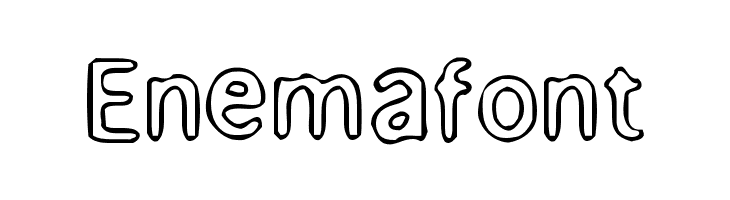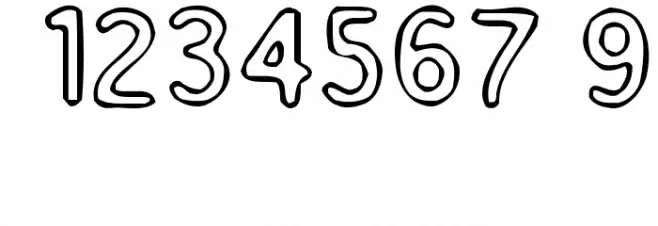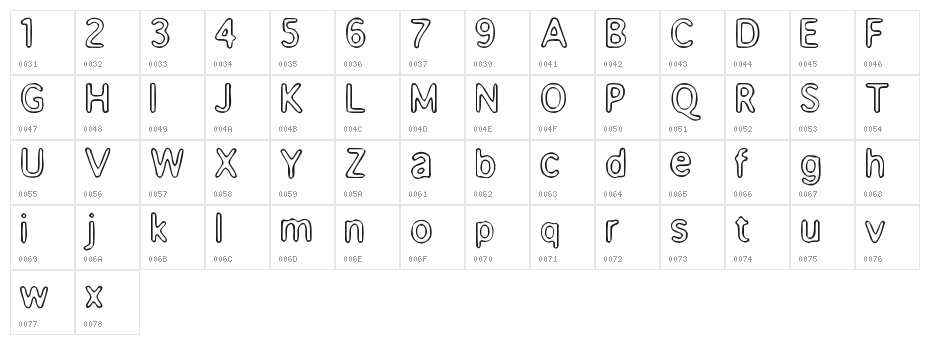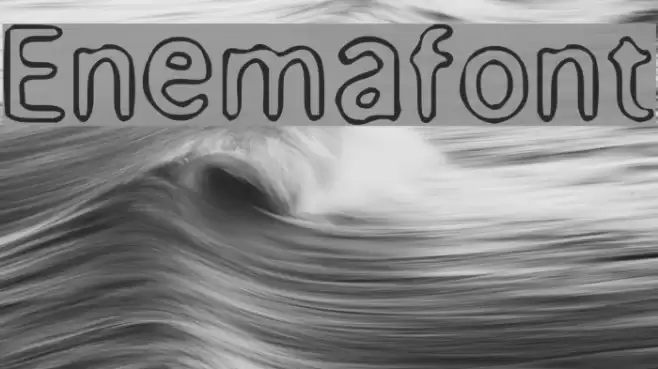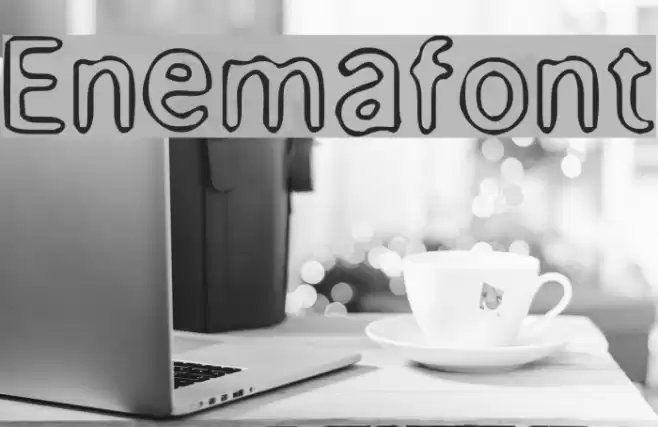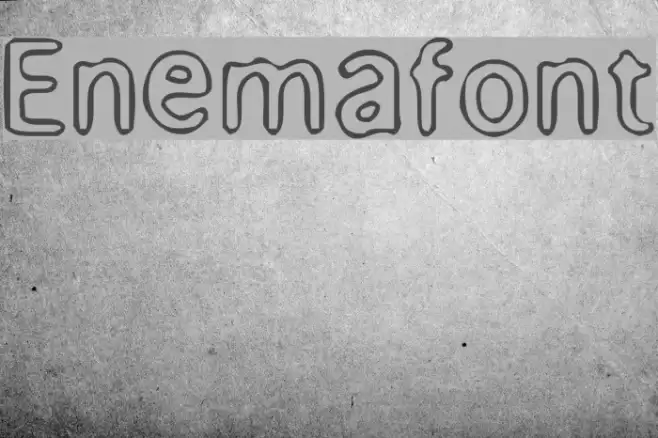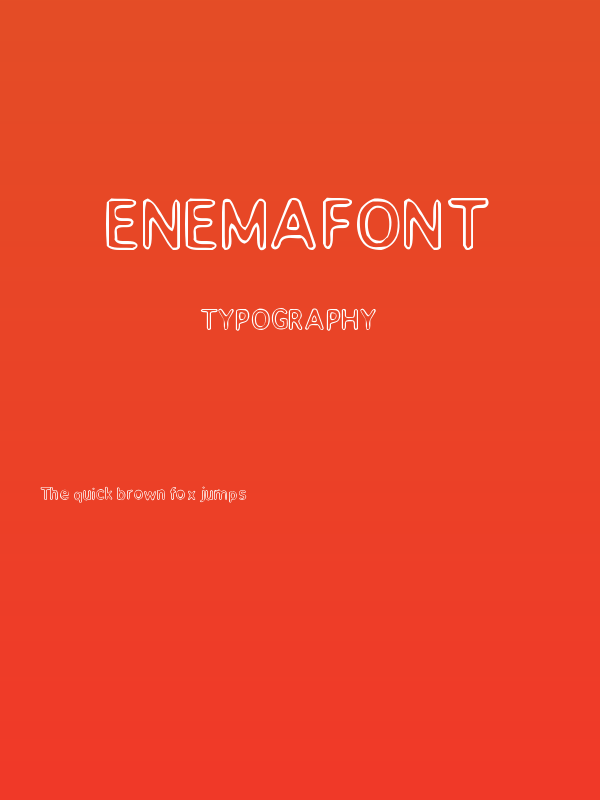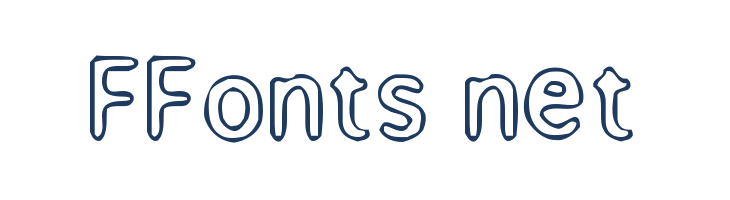
Enemafont Font
Enemafont Description
This playful and bold font features a unique outline style that gives it a three-dimensional appearance. The characters are rounded and slightly irregular, adding a whimsical and informal touch. The uppercase and lowercase letters maintain a consistent style, with smooth curves and a friendly aesthetic. The numbers and special characters follow the same design principles, ensuring a cohesive look across all text elements. This font is ideal for projects that require a fun and engaging visual impact.